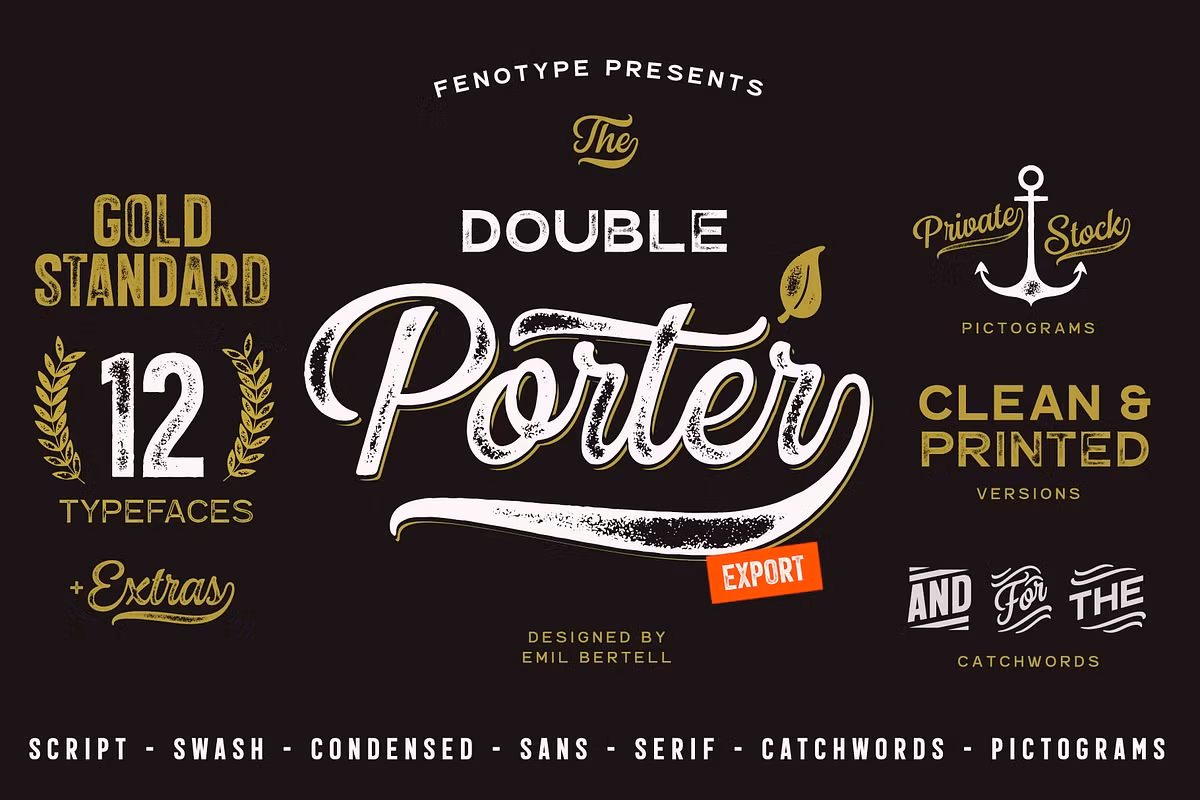
Double Porter 12 FONTS + EXTRAS Free Download
Double Porter 12 Fonts + Extras Free Download
Double Porter 12 Fonts + Extras Free Download is an extensive font bundle that includes 12 beautifully designed fonts, along with additional extras to enhance your creative projects. This collection offers a mix of bold, contemporary sans-serifs, elegant scripts, and unique display fonts, making it perfect for logos, branding, posters, websites, invitations, and more. The included extras add graphic elements, decorative touches, and stylistic options to give your designs a distinct and dynamic look. Whether you’re designing for a modern brand, a creative campaign, or a personal project, Double Porter 12 Fonts + Extras Free Download provides endless possibilities. Explore the fonts and extras in personal projects before purchasing a commercial license and elevate your designs with this versatile font bundle.